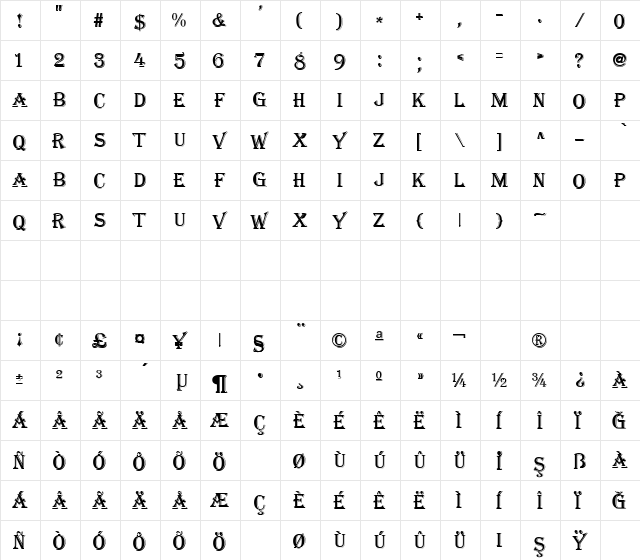
TR Algiers Regular
Design Context for TR Algiers Typeface
TR Algiers is a composed and adaptable typeface that performs quietly and consistently across a wide range of design contexts.
Pro Tip: Pair TR Algiers with a font of contrasting weight or personality to build a more expressive typographic hierarchy.